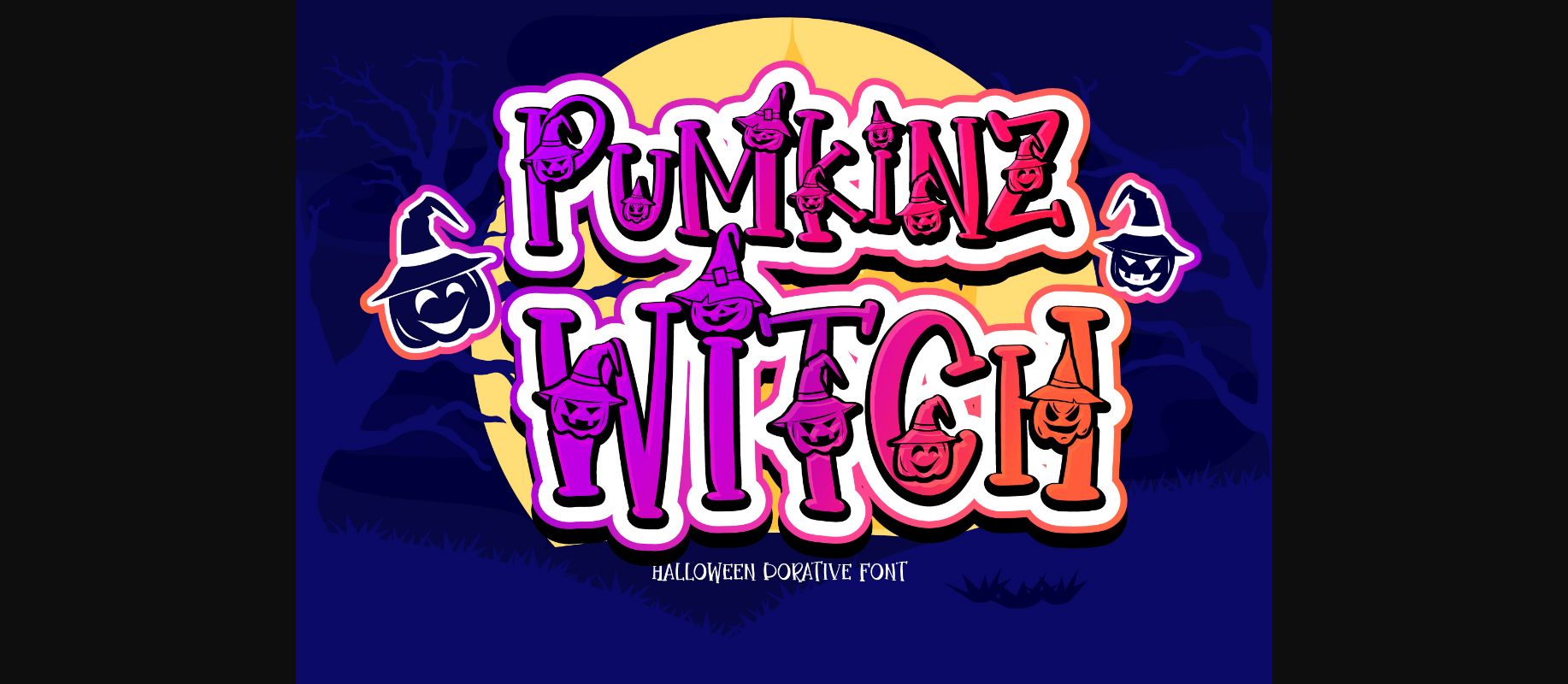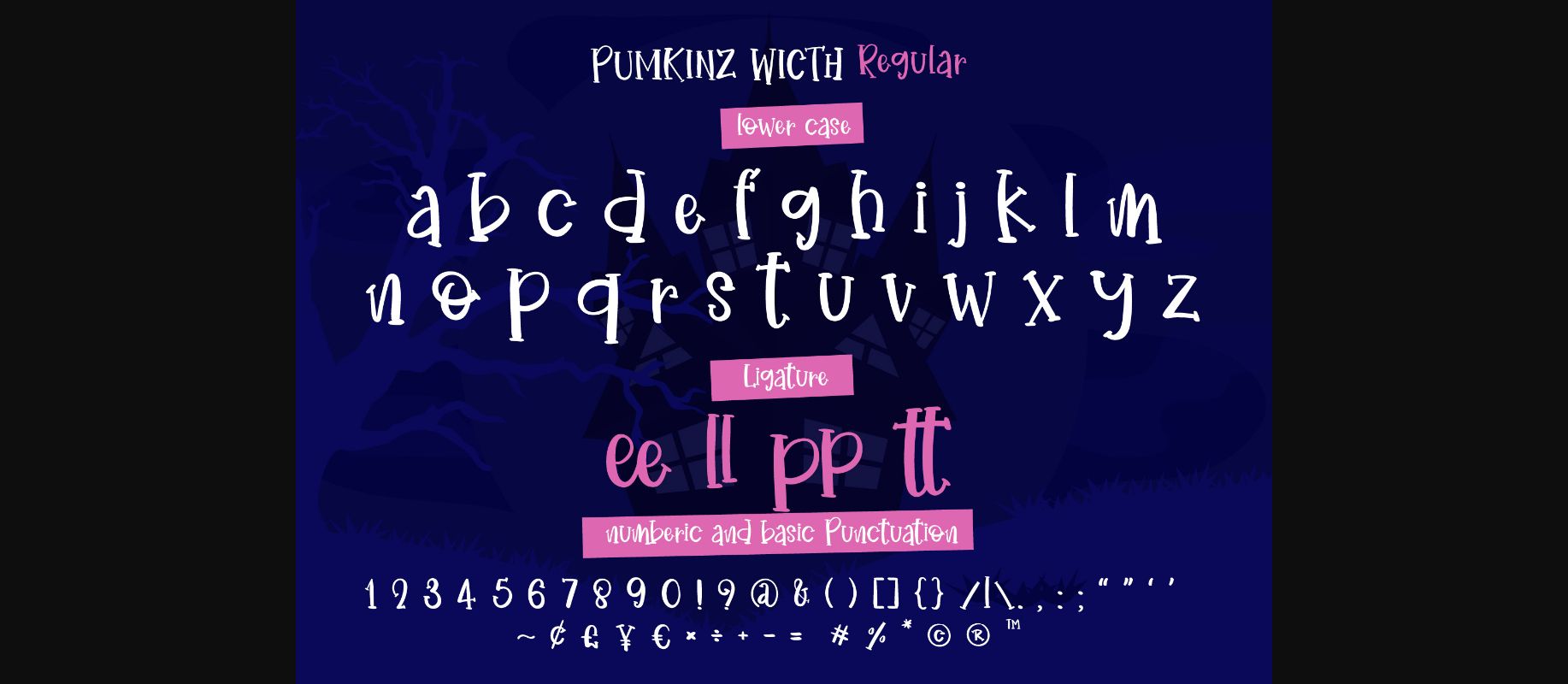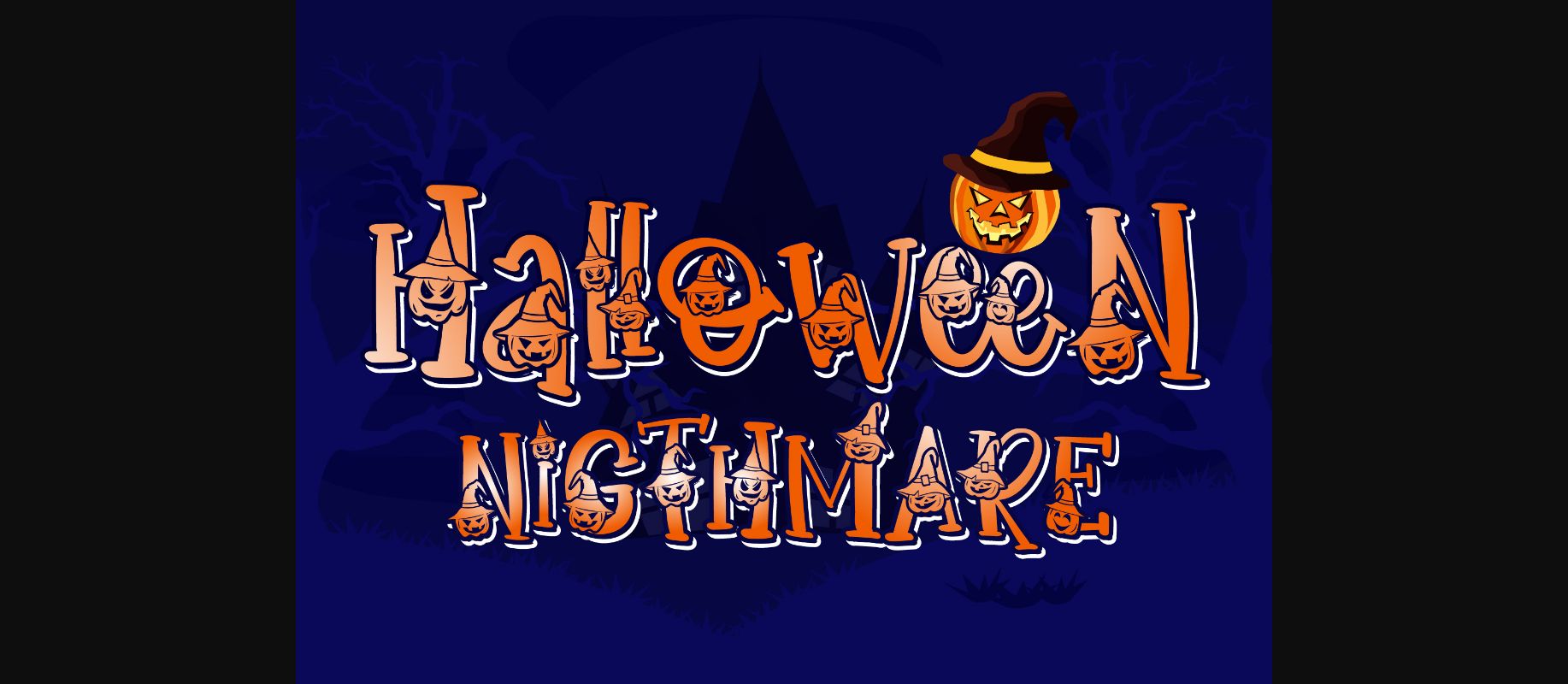
About PumKinz Witch Font
PumKinz Witch is a quirky and highly detailed decorative font. Whether you are using it for cartoon-related designs, children games, quotes, titles, brand names, book covers, posters, or just any creation that requires a touch of joy, this font is a great choice.